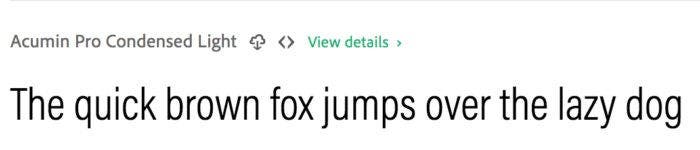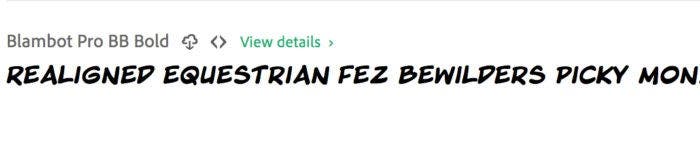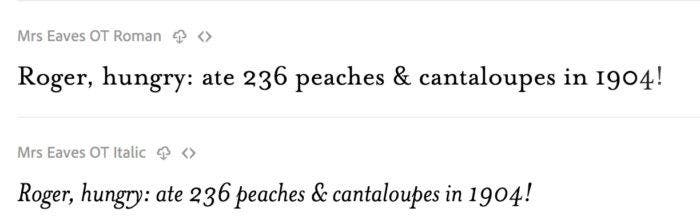
We’ve assembled the Typography Welcome Pack as a starting point for designers like you. This collection of 25 fonts from various families will expose you to some of our most popular and versatile fonts.
“The fonts in the pack are meant to demonstrate a cross-section of not only the kinds of fonts you can find on Typekit, but also a broad range of useful typefaces for the trends we expect users want to jump into and feature in their work,” says Dan Rhatigan, senior manager with Adobe Typekit.
Here’s a breakdown of the fonts featured in our Typography Welcome Pack and what makes each of them a special addition to your next design project.
By: Robert Slimbach
Designed by a member of Adobe’s in-house type team, Acumin is considered a classic modern grotesque, similar to Helvetica. It functions as a versatile, workhorse typeface that is sharp, clean, and uncomplicated. Three different weights of Acumin are available in the Welcome Pack.
Potential uses:
- Headlines.
- Graphic displays.
- Lines of text.
By: Dalton Maag
Objektiv caters to current trends of crisp geometrical and symmetrical sans serif typefaces. The large rounded letters approach as near a perfect circle as possible, and there are few extraneous details that might distract the viewer. It’s a clean and simple typeface. The Welcome Pack includes the thin weight.
Potential uses:
- Branding.
- Packaging designs.
- Lines of text.
- Display graphics.
By: Zuzana Licko, Emigre foundry
This typeface is a modern classic that has a bit too much detail to be an everyday, every situation typeface, but is perfect when you want to evoke the idea of books and literature with an added flair. The OT Roman and OT Italics fonts are included in the Welcome Pack.
Potential uses:
- Editorial projects in need of embellishment.
- Posters promoting book fairs or meet-the-author book signings.
- Library signage.
By: Mitja Miklavčič, FontFont
Like Mrs. Eaves, FF Tisa was designed with editorial uses in mind. It was actually one of the most popular typefaces used in the early days of web fonts because its sturdy lines were always visible on-screen. This font works well in both digital and print scenarios. Welcome Pack subscribers will receive the Pro Regular and Pro Bold fonts.
Potential uses:
By: James Todd, JTD
This classic high-contrast serif typeface lends the text a sense of elegance with a sharp distinction between the heavy strokes and thin strokes of each letter. The typeface is stylish and fun while remaining classy and sharp. The Welcome Pack features the Text Regular font.
Potential uses:
- Editorial projects.
- Designs for fashion and luxury brands.
- Book text.
- Magazine text.
By: Jos Buivenga, exljbris Font Foundry
This slab serif typeface follows the trend of wide-proportioned, rounded letters. It fits with the popularity of geometric sans serif typefaces, but the slab serif design makes it a little easier to read. Where Objektiv focuses on minimalism and detail reduction, Museo Slab softens its letters slightly with a few additional details.
Potential uses:
- Web text.
- Advertising copy.
- Text overlays for social media images.
By: Michael Hochleitner, Typejockeys
Henriette is a bold serif typeface. It’s heavy and eye-catching. The font offered in the Welcome Pack — Black Italic — has real vigor and zest.
Potential uses:
By: Jim Parkinson
This eclectic display typeface has over 20 different fonts of various weights and styles. The Welcome Pack includes Sutro Heavy, a good representation of what the typeface offers. Its solid, black strokes softened by serifs bring to mind an image of older, chunky wood display type.
Potential uses:
- Posters.
- Web text.
- Headlines.
By: Erik Marinovich and James Edmondson, OH no Type Co.
Viktor Script is one of several script fonts available in the Welcome Pack. Each script font conveys a different feeling that allows designers to get the handwritten look they are going for while also matching the overall tone of the piece. This font is heavy and condensed, similar to a display font and is perfect for any project that requires flair and detailing.
Potential uses:
- Posters.
- Graphic displays.
By: Neil Summerour
In contrast to Viktor Script, Lust Script is wide and expansive, showing off every luxurious detail of the high-contrast typeface. The combination of extremely thick strokes and almost invisible thin strokes allows for extra embellishments that might make another typeface appear muddled.
Potential uses:
- Decorative quotes.
- A large scale display in need of a handwritten feel.
By: Laura Worthington
This casual script font makes the text seem personal and friendly. Laura designed Renata as an OpenType font, so Creative Cloud users can play around with the glyph palette and find alternate shapes for many of the letters.
Potential uses:
- Invitations in need of a personal touch.
- Thank you notes.
By: Mike Rohde
The aptly-named Sketchnote is a non-cursive script font, which conveys the idea of someone — particularly a child — quickly writing out a casual note without the need for elegant handwriting. The typeface is fun and imaginative. The Text Regular font is included in the Welcome Pack.
Potential uses:
- Posters.
- Signage.
- Packaging for children’s products.
By: Blambot
This script font is a classic comic book typeface and works great for anything requiring either nostalgia or a feeling of heroism. The Welcome Pack includes BB Bold.
Potential uses:
- Invites to a superhero movie night.
- Signage for a comic book themed birthday party.
By: Ken Barber
This font family has many options to choose from, and the Welcome Pack will introduce you to one of the most popular choices: House Slant Regular. The font consists of thick, soft brushstrokes and probably looks familiar.
Potential uses:
- Grocery store signage.
- Bake sale flyers.
- Car wash posters.
By: Octavio Pardo, Rosetta Type Foundry
Sutturah is fairly unique in the world of typefaces. Its heavy black strokes eliminate almost all letter whitespace, and the curvy, asymmetrical letters almost look like they are moving. Sutturah wants you to know it’s there. The font works well when you need something punchy and dramatic, but also fun and lively. Sutturah Fat is included in the Welcome Pack.
Potential uses:
- Flyers and posters for a school dance.
- Advertisements for a theatrical production.
By: Nick Cooke
This casual, handwriting-esque typeface looks as though it were written with a thin brush or marker. It has a fast personality, like someone went through it in a hurry.
Potential uses:
- Business postcard.
- Mailers for a community event.
By: Brian Willson
Marydale font is similar to Rollerscript — it’s fast, loose, and casual — but while Rollerscript is a cursive script font, Marydale styles more toward print handwriting. Both convey a sense of friendly cheerfulness.
Potential uses:
- Decorative quotes.
- Handwritten type in graphic art.
By: Joshua Darden
This multipurpose rounded display font is popular with businesses. Like Objektiv and Museo Slab, sans serif letters are geometric and wide, but Omnes softens the circles a bit to make the text seem slightly less mechanical and more casual.
Potential uses:
- Brand identity campaigns.
- Published assets like white papers and sales copy.
By: Edenspiekermann
This monospaced typeface, like many similar typefaces, is a clean display font, but it has come to serve a highly specific purpose in the world of typeface design — showing technological information.
Potential uses:
- Showing snippets of code.
- Text relating to computers or machine learning.